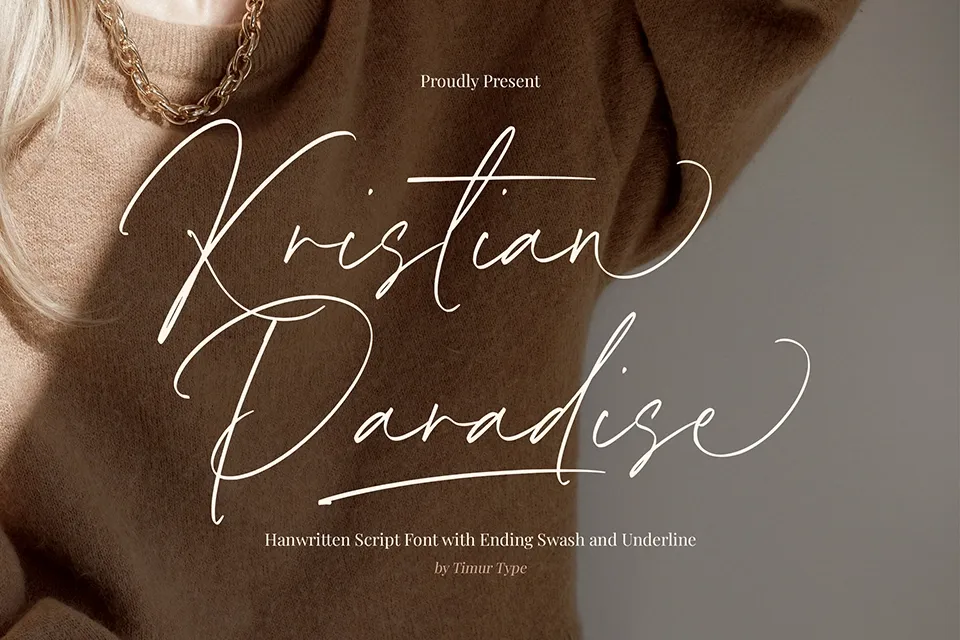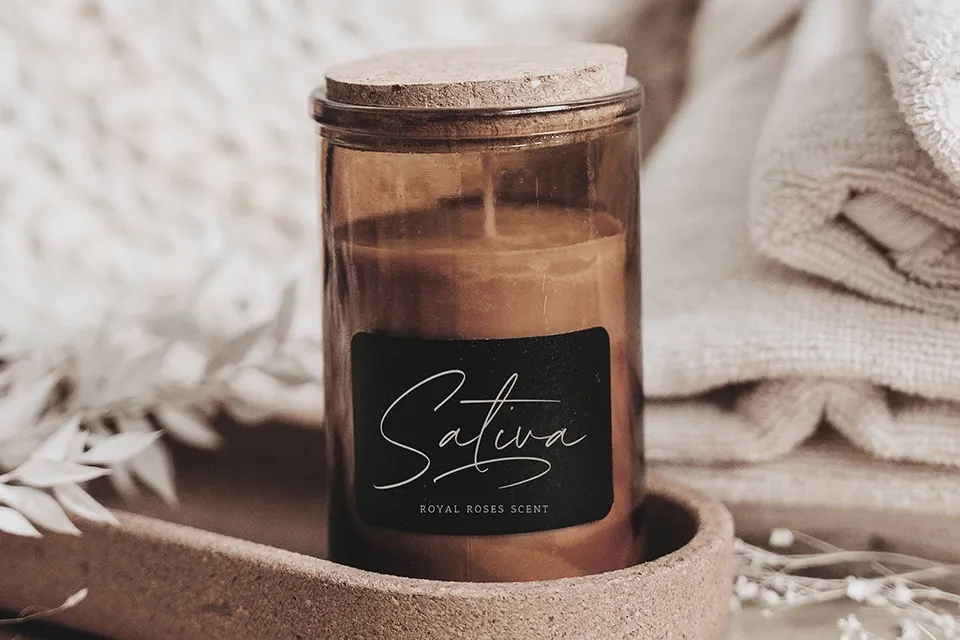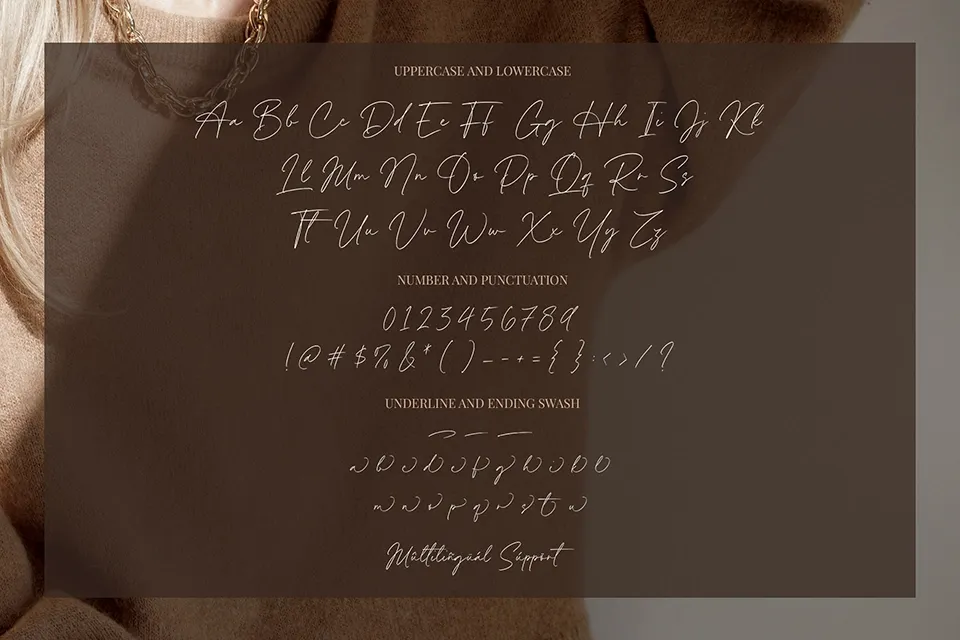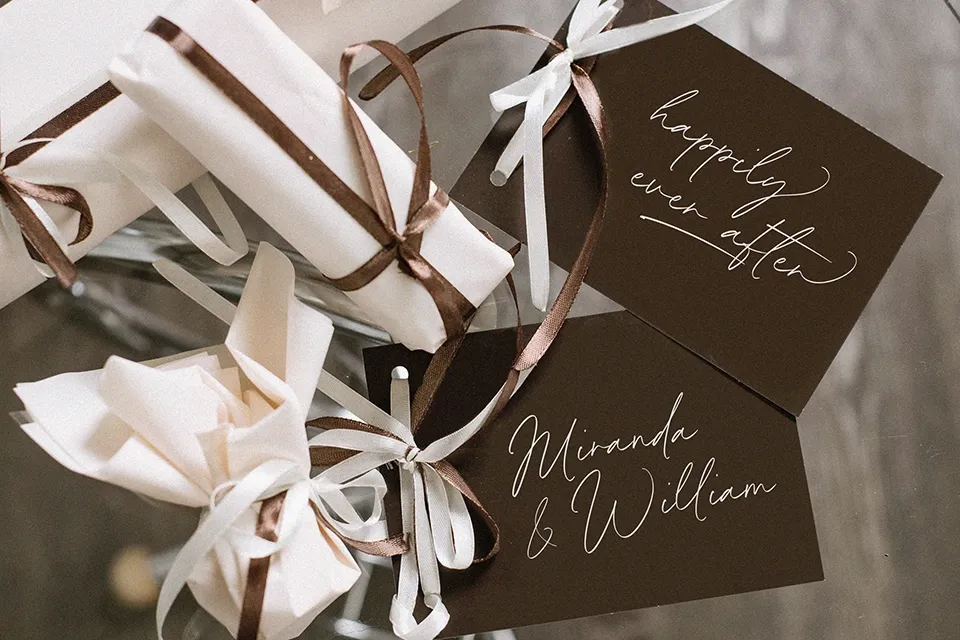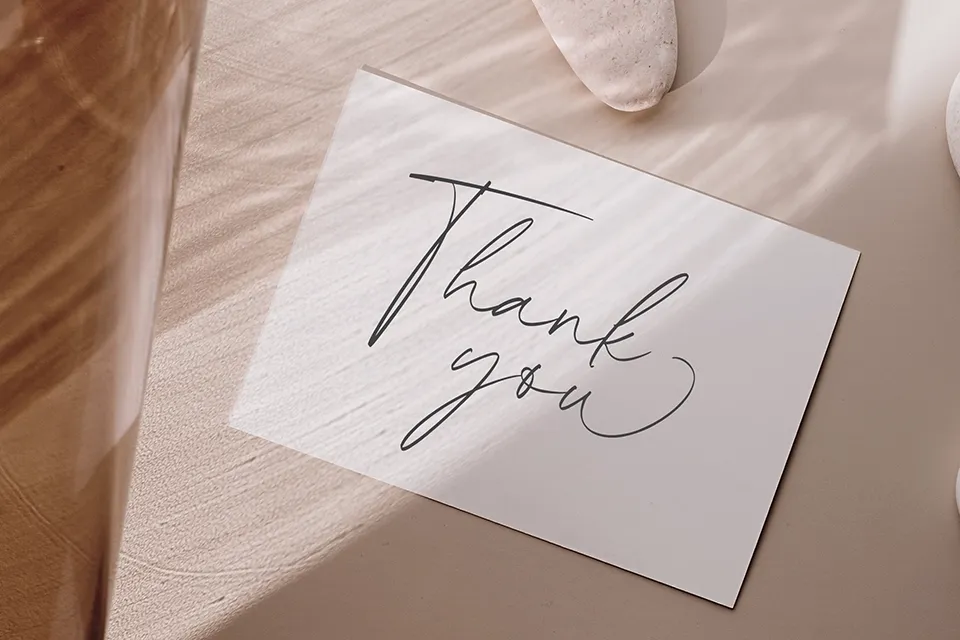
Kristian Paradise Font
Kristian Paradise Font is an elegant handwritten script font created by Timur Type. It features flowing, graceful letterforms that emulate natural handwriting, giving it a personal and sophisticated touch. Distinctive characteristics include ending swashes and underlines, adding decorative flair and versatility to the typeface. This font is well-suited for projects that require a touch of luxury and style, such as wedding invitations, branding, logos, signatures, and social media graphics. Kristian Paradise brings a refined, handcrafted aesthetic to designs, making text feel both intimate and upscale.